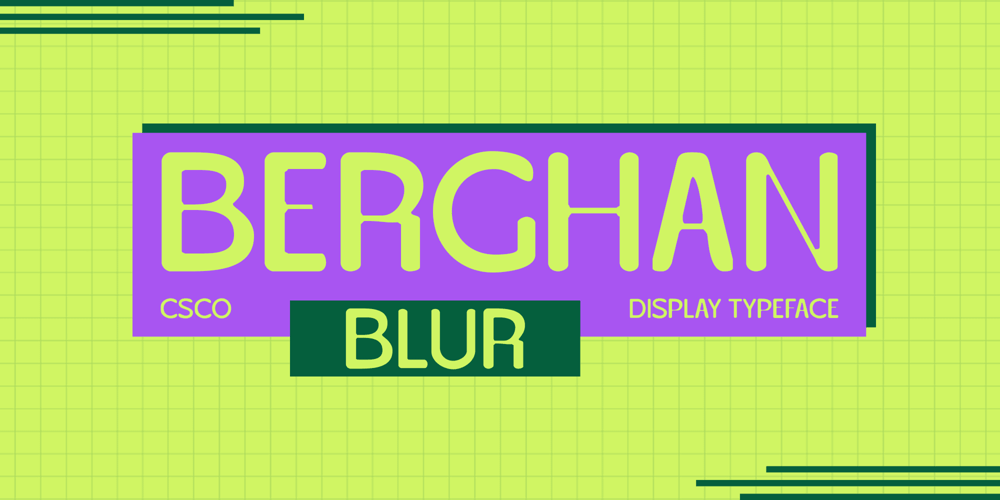
Berghan Blur Font Family was designed by Trio Nazzar Saputra, Wahyu Hadi Yuana and published by Craft Supply Co. Berghan Blur contains 2 styles and family package options. Berghan Blur: Grotesque Modern Sans-serif Font with Blur EffectClean and Bold with a Soft Artistic TouchBerghan Blur is a modern sans-serif font with a grotesque style and a subtle blur effect. Ideal for various creative designs, this font combines a clean, bold look with a soft, artistic touch, perfect for projects that aim to stand out and captivate attention.Ideal for Attention-Grabbing DisplaysPerfect for headlines, banners, and other display purposes, Berghan Blur ensures your message is both seen and remembered. Its grotesque style and blur effect make it a unique choice for designs seeking to create a visually appealing and striking impression.Versatile and CaptivatingDespite its bold and blurred appearance, Berghan Blur remains versatile and captivating. Its modern sans-serif style makes it suitable for a wide range of projects, from branding to digital designs, where a font with both a strong presence and artistic vibe is essential for making a statement.Perfect for Adding a Unique Creative FlairBerghan Blur is ideal for projects requiring a font with a unique creative flair. Whether you’re designing a poster, logo, or website, this font will undoubtedly add a distinct and memorable element to your designs.